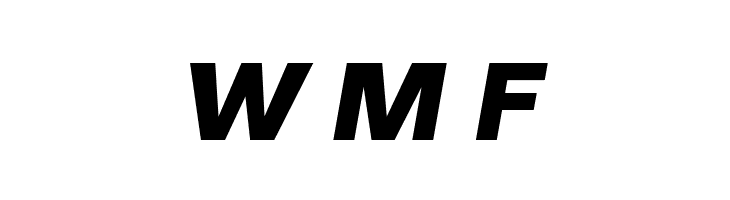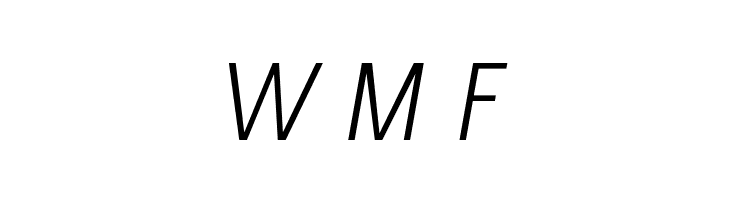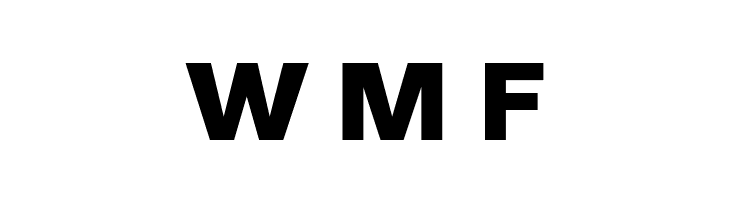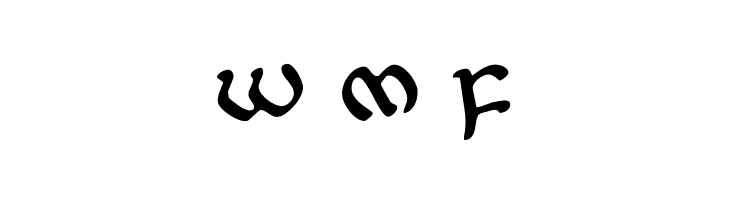
( Genilson L. Santos )
A bold and italic font with a modern, dynamic style.
( Genilson L. Santos )
A sleek, modern, light italic sans-serif font with elegant slant and clean lines.
( Genilson L. Santos )
A clean, modern sans-serif font with balanced proportions and consistent stroke width.
( Genilson L. Santos )
A modern, semi-bold sans-serif font with clean lines and balanced proportions.
( Genilson L. Santos )
A bold, modern typeface with clean lines and strong presence.
( Genilson L. Santos )
A modern, light sans-serif font with clean lines and balanced spacing.
( Genilson L. Santos )
A sleek, modern italic font with smooth curves and a professional appearance.
( Genilson L. Santos )
A bold, modern font with clean lines and rounded edges, perfect for impactful designs.
( Graptail Type Studio - creativemarket.com/graptail )
A bold, decorative font with vintage cut-out details.
A decorative, medieval-inspired font with bold, flowing strokes and intricate details.